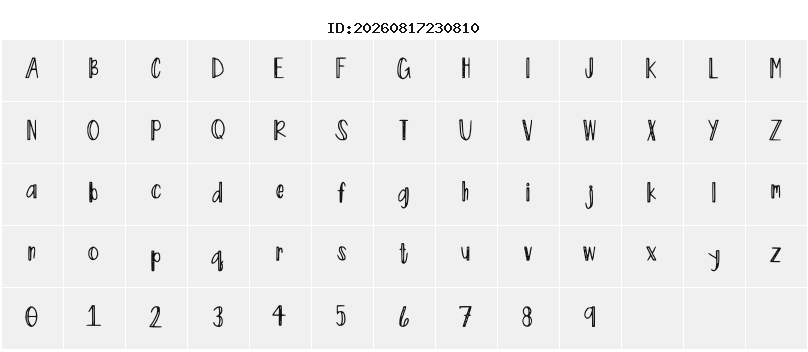
• Font Name: So_Boxy
• Full Font Name: So_Boxy
About So_Boxy.ttf
So_Boxy.ttf is a modern, elegant sans-serif font designed for ultimate readability and visual harmony. Perfect for branding, headlines, web design, and print materials.